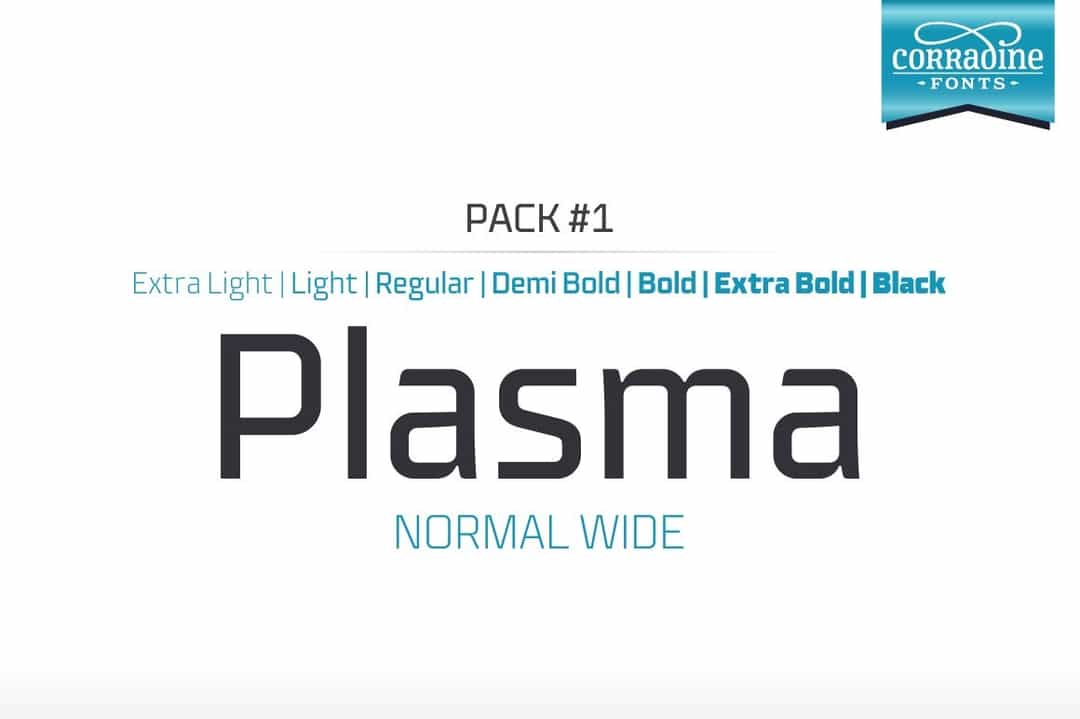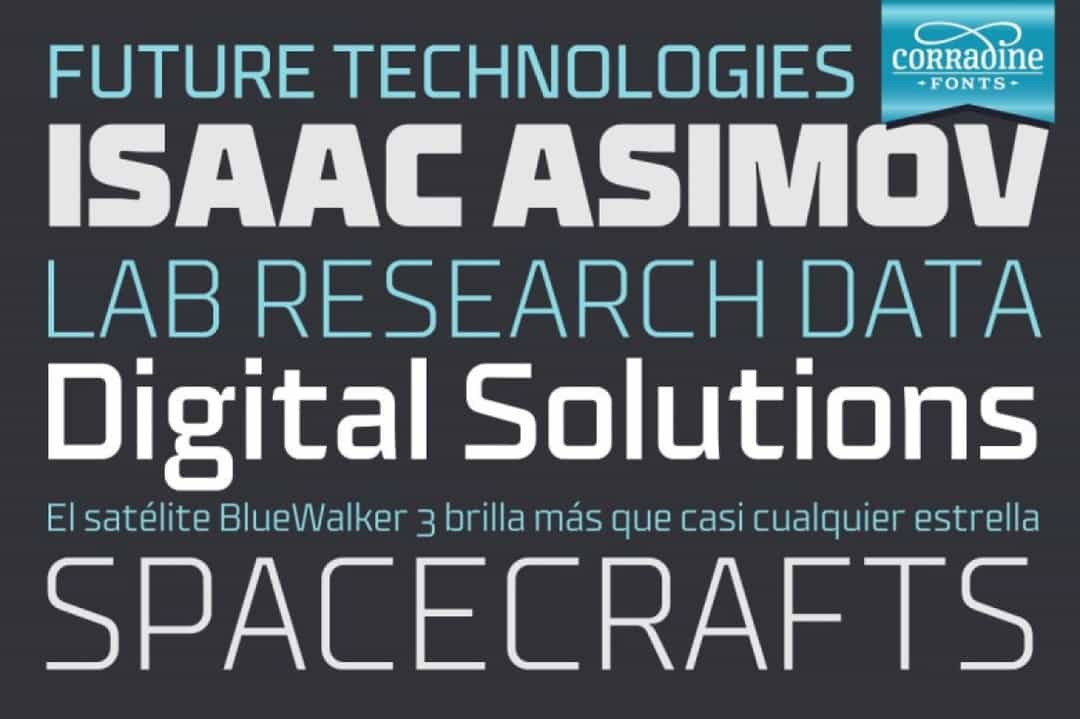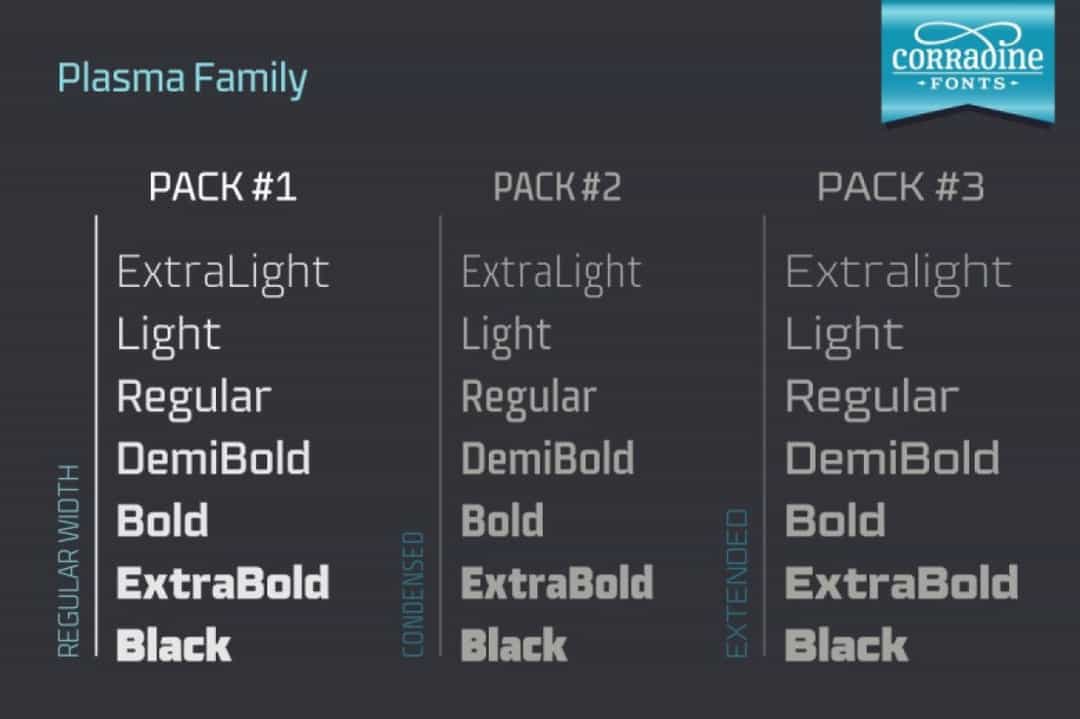
Plasma is a modern font family distinguished by its geometric and clean aesthetics, featuring square-based letterforms with futuristic flair that make this font ideal for corporate, editorial packaging, posters and packaging designs as well as web designs.